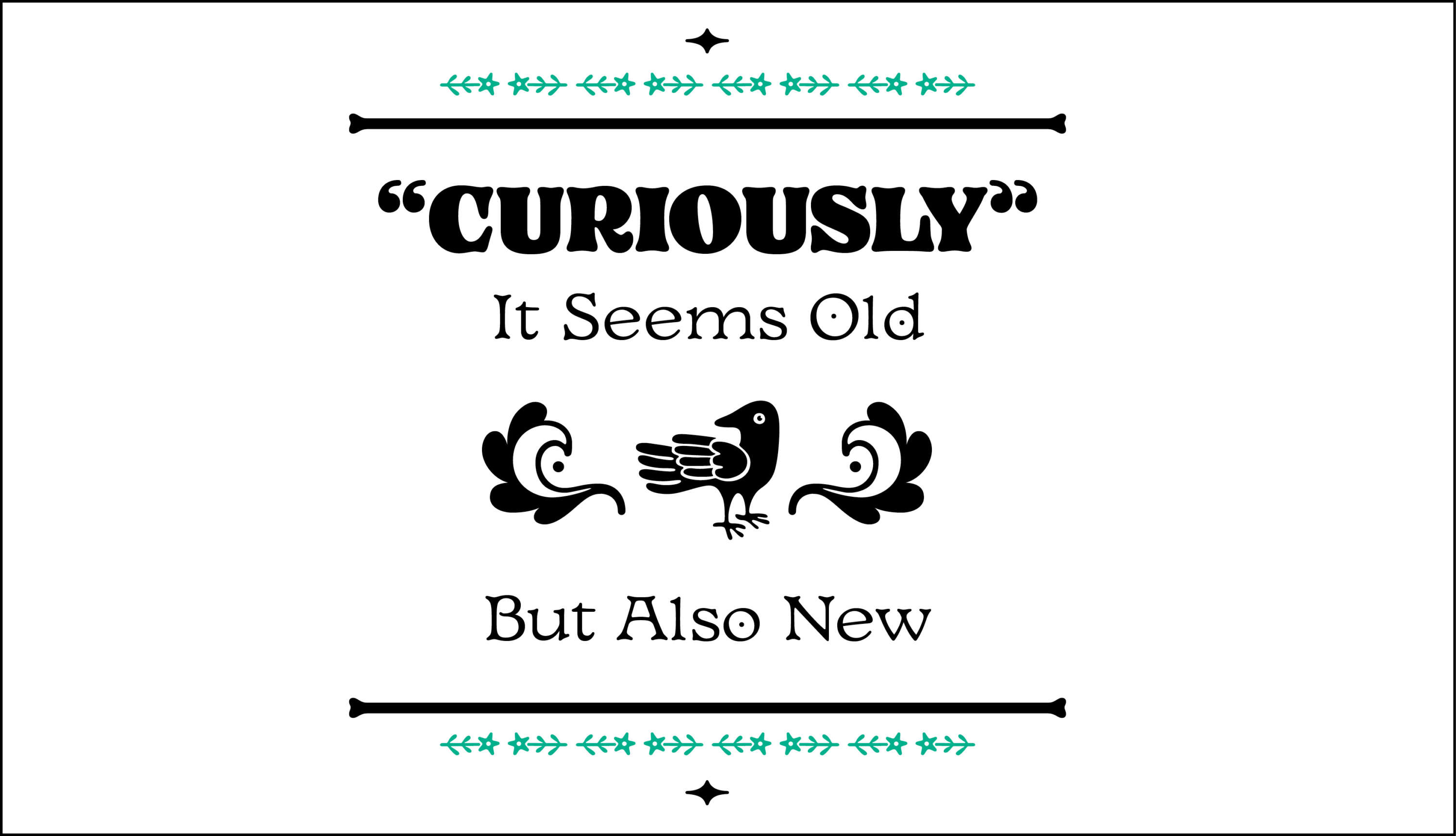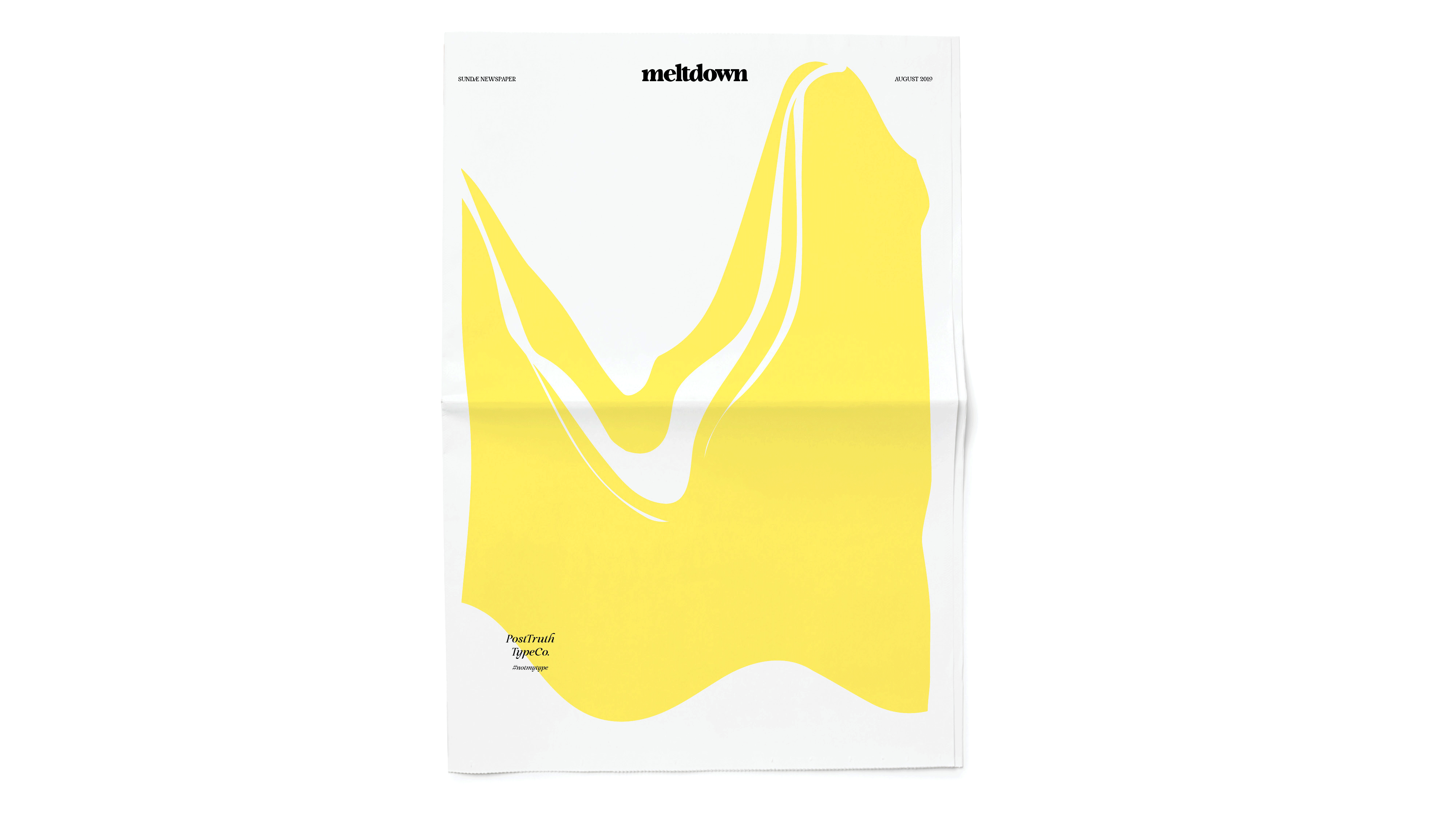
Type West Alumni Spotlight
What happens after graduating from Letterform Archive’s type design program? Eight grads talk about how they’ve used their newfound skills.
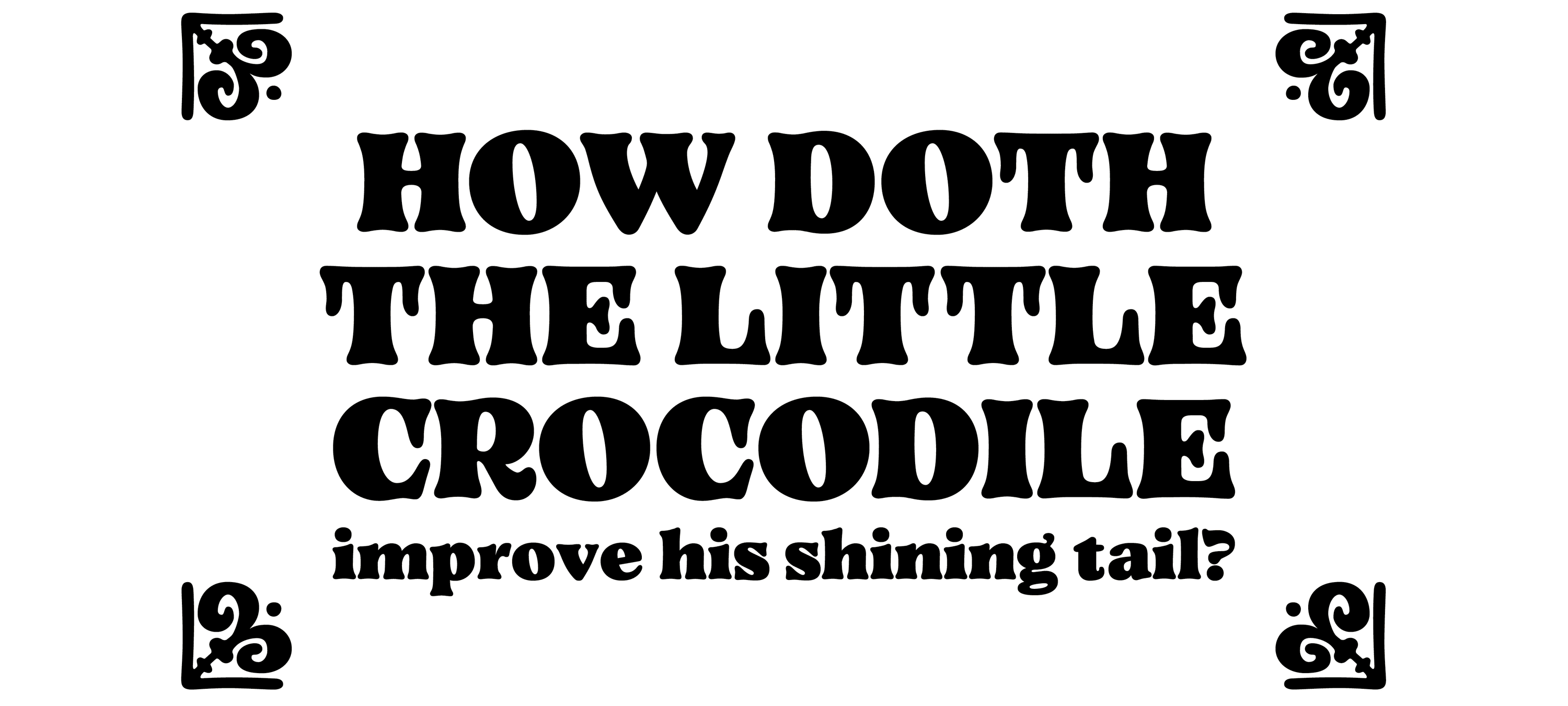
As Type West’s class of 2025 rolls into its final term, we’re marking a major milestone: after this year, more than 200 students (including Type@Cooper West classes of 2017 and 2018) residing in 22 countries will have graduated from the yearlong certificate program.
Mastering typeface design is about making fonts, yes, but it’s also about learning how to see type and letterforms in a deeper way. Type West alumni often say that they’ve boosted all their typographic skills, from selecting and setting type, to lettering and logo design.
In this spotlight, eight global Type West graduates show how they are putting their expertise to work, joining foundries and starting their own, releasing fonts on the retail market, designing custom typefaces for clients, and implementing bespoke lettering in brand design. And they’re raking in some prestigious accolades while they’re at it.
Adriana Garcidueñas
Adriana Garcidueñas attended TypeWest Online from her home in Morelia, México. Her graduate project was Hell.Inc, three styles acting as a typographic metaphor for Dante’s journey in The Divine Comedy. Adriana snagged a job in type design a few months after she graduated when the foundry Arabic Typography spotted her work on the Type West 2023 website. Earlier this year she launched her latest typeface Tlayuda on Future Fonts. But Adriana isn’t done learning — she just earned a coveted spot in next year’s Type & Media master program at KABK in The Hague.
I think Type West makes you decide if you really want to dive into this world. For me, it was the confirmation that I truly wanted to do this for a living. And then that first job was the manifestation!
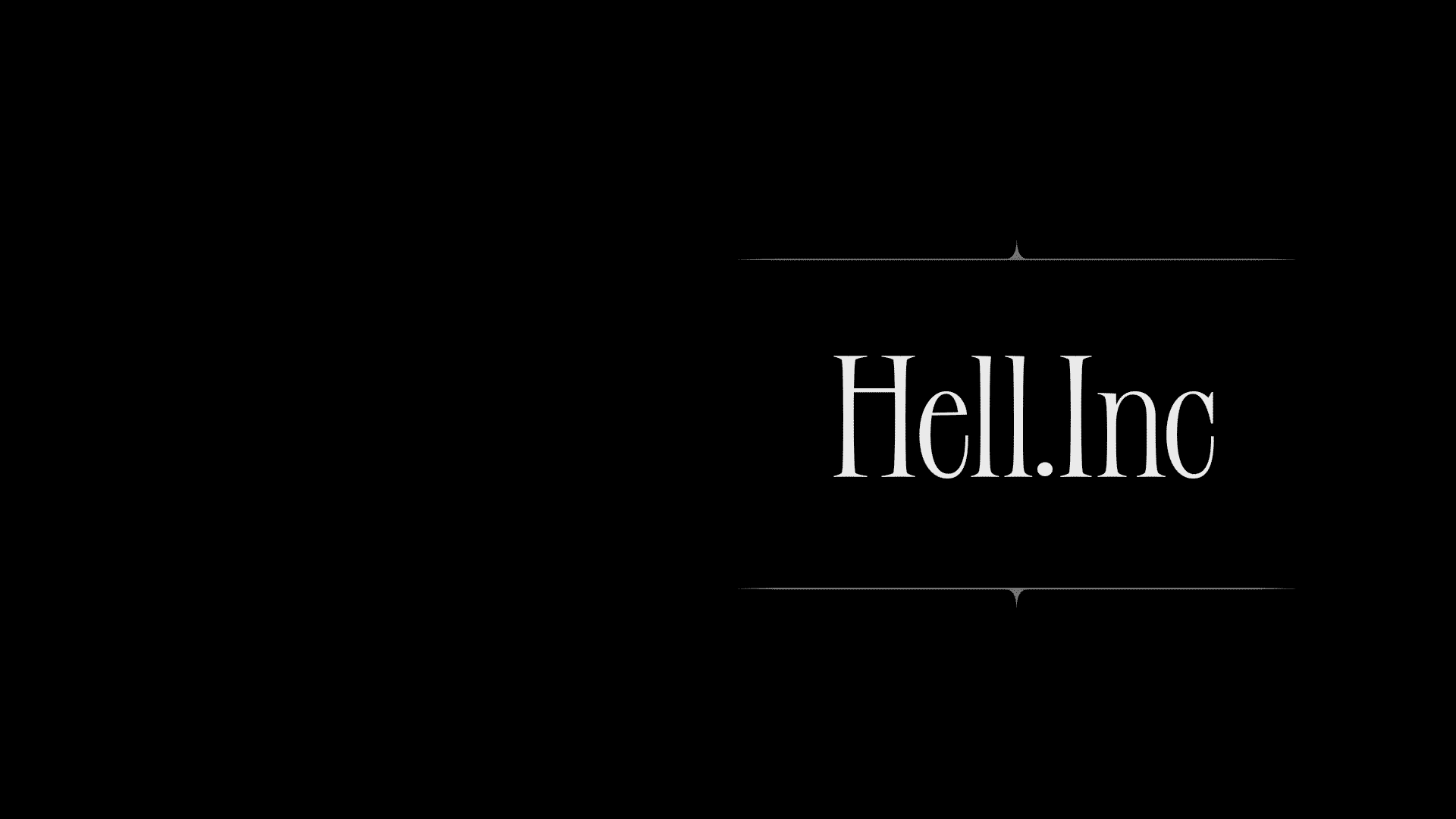
Emily Klaebe
Emily Klaebe has been shaping identity systems at Order since 2020, and in 2021 she took on the expanded role of leading design at Order Type Foundry. She completed Type West in 2022 with the typeface Francine, and the revival Stringer, which she eventually released at Order Type Foundry. Building on her Type West experience, in 2023 she co‑taught a course on the foundations of typeface design at Portland State University alongside Travis Kochel.
Jamie Otelsberg
Jamie Otelsberg is a visual and type designer whose work spans multiple continents. She originally hails from Agoura, California, and now lives in Bochum, Germany. Attending Type West Online in 2021, Jamie created Theka, a Latin display family inspired by hand‑painted municipal signs and ads from rural South India. After graduating, she joined OH NO Type Co. as Studio Admin. She also contributes as a type designer and font production assistant, helping with both custom and retail projects.
Before joining Type West, I spent several years working in graphic and user experience design, but I felt a strong urge to delve into type design. The comprehensive design and development curriculum provided me with a solid foundation to expand my skills, as well as a supportive community of peers/mentors to learn from and with. It was an unforgettable experience that profoundly shaped both my career and personal trajectory.
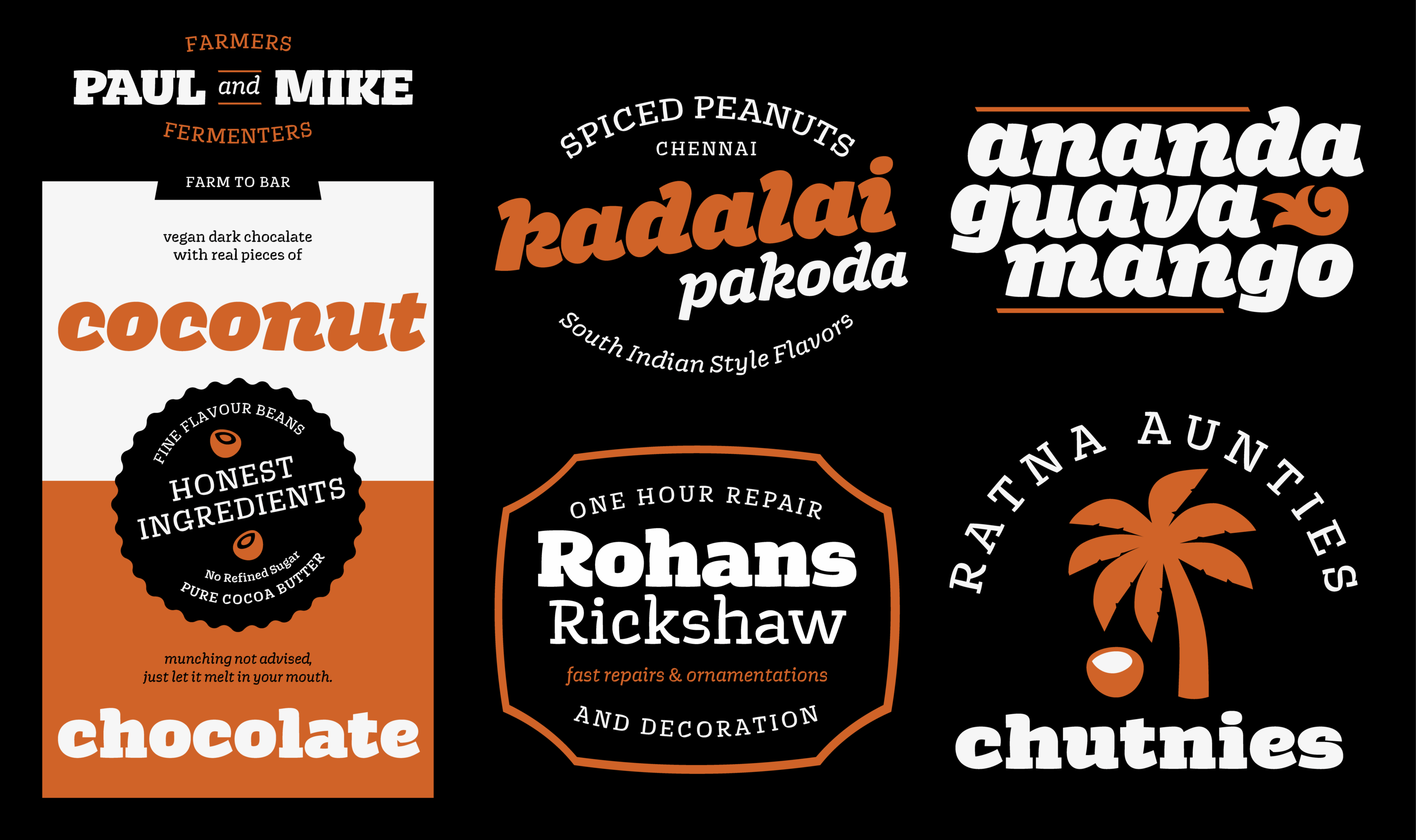
Iván Castro
Iván Castro completed Type West Online 2022 from El Salvador, and has since dedicated his practice to shaping typefaces and typographic concepts that balance precision and personality. His Type West project Ecléctica was picked up by the Sudtipos foundry. He is also the co‑founder of Cabinete, a design collective aimed at creating a platform for Central American type and typographic projects.
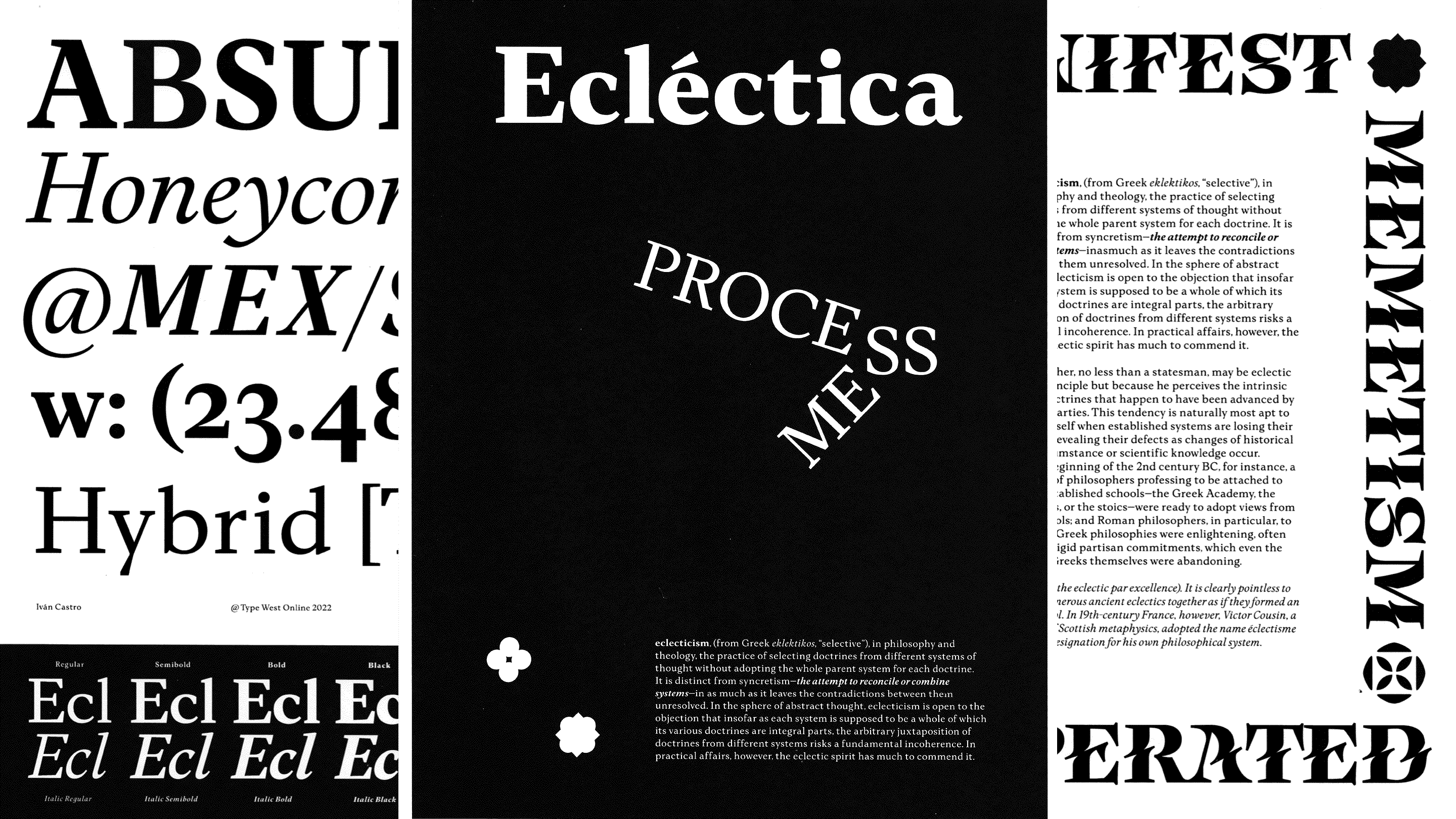
Libbie Bischoff
In 2019, after getting accepted to Type West, Libbie Bischoff packed up her life in Minnesota and traveled over 2,000 miles to San Francisco to attend the program in person. After graduating in 2020, she launched a bold creative challenge: designing 52 fonts in one year, exploring a wide range of typographic styles and laying the foundation for her future work. Since then, Libbie has focused on building her foundry, Type Du Nord. She also recently published Socko on Kel Troughton’s Overlap Type, and got a commission from Docusign to design new eSignature fonts. Libbie generously shares her expertise through her newsletter and teaching.
Type West was pivotal in kickstarting my type design career. With weekly feedback from my instructors, I was able to advance my skillset and hone my critical, typographic eye. I could not be where I am — making type and teaching others how — without first learning from the talented folks in this program.
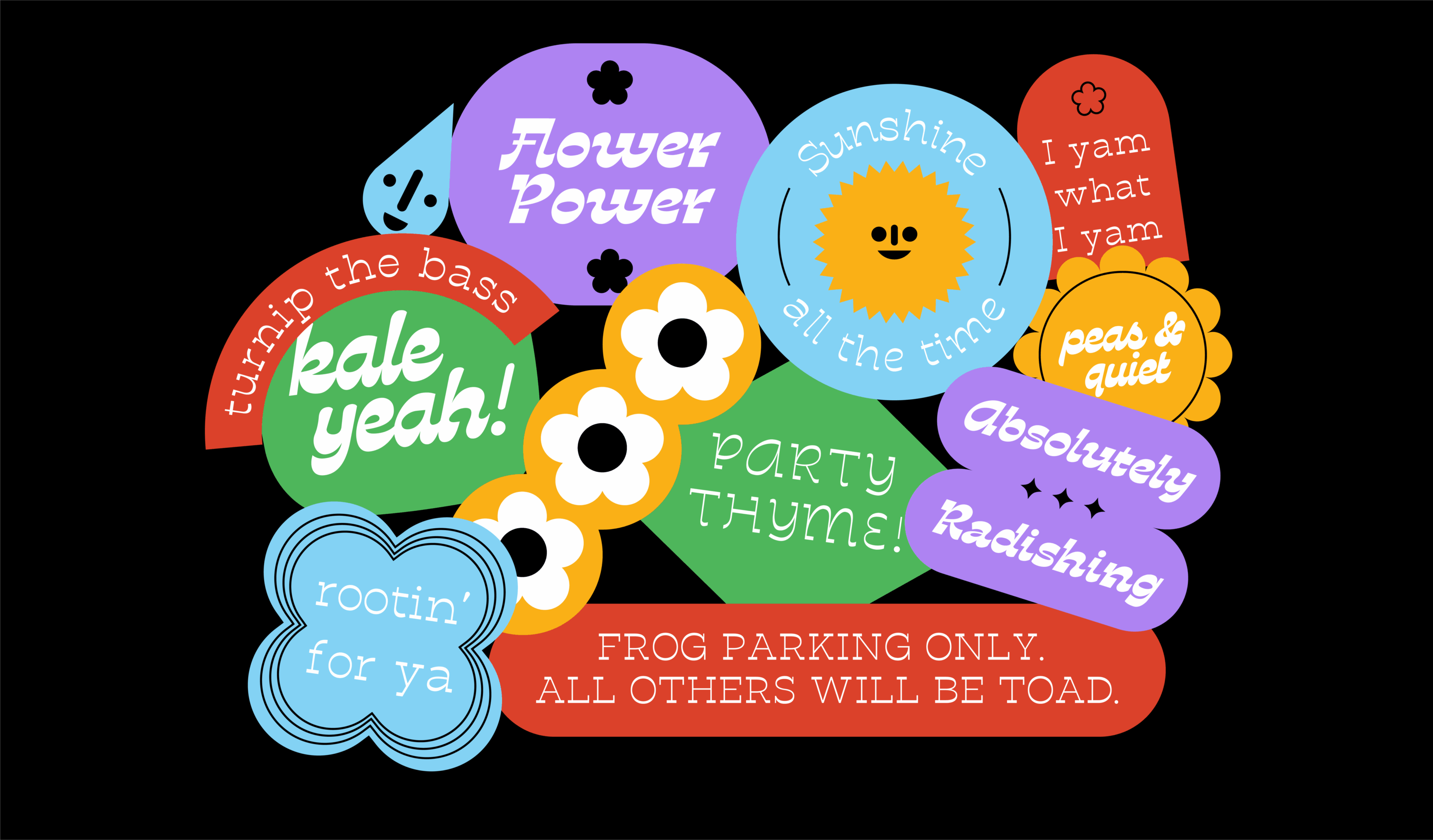
Leopoldo Leal
When São Paulo-based designer Leopoldo Leal joined the online cohort in 2022 he already had over two decades of in experience in design, including a Ph.D and awards from the Type Directors Club, Brasil Design Awards, and Latin American Design Awards. His Type West project, Sea Of Hills, is a mature text typeface inspired by the writing of Brazilian author Carlos Drummond de Andrade. He now leads Pandemonium Type, where he creates custom typefaces—most notably a vibrant color variable font for Guaraná Antarctica—and applies typographic thinking to brand identities. Leopoldo also teaches type design and visual identity at ESPM-SP and École Intuit Lab.